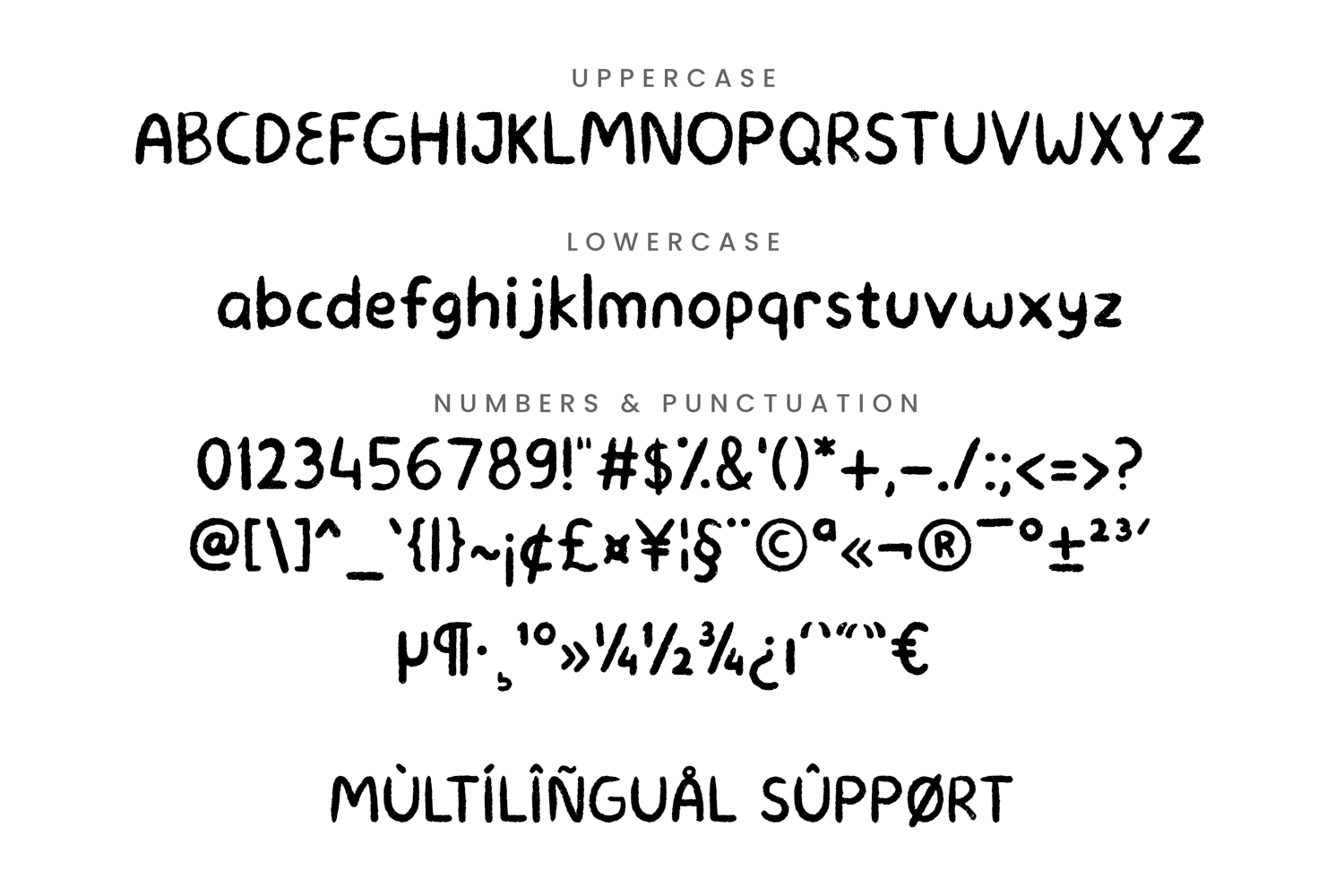
Introducing Maila, a handcrafted font that exudes a charming flair! This font is ideal for adding a relaxed yet stylish touch to any project, be it poster creation, printed quotes, or digital designs.
Maila